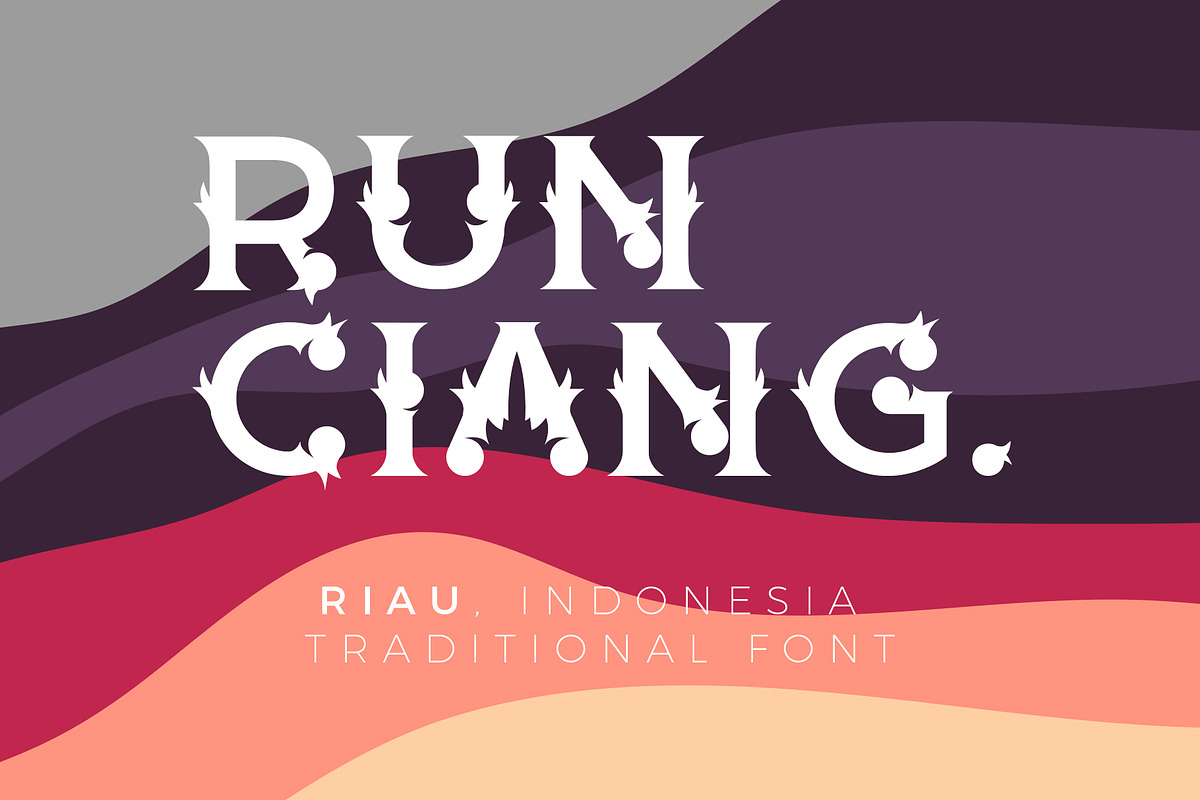
RUNCIANG - RIAU TRADITIONAL FONT
This font i make for my province's country, Riau And this is my first font. I hope you like this font :))
RUNCIANG - RIAU TRADITIONAL FONT by Alif Pratama fits naturally into Branding, posters, packaging, typography.